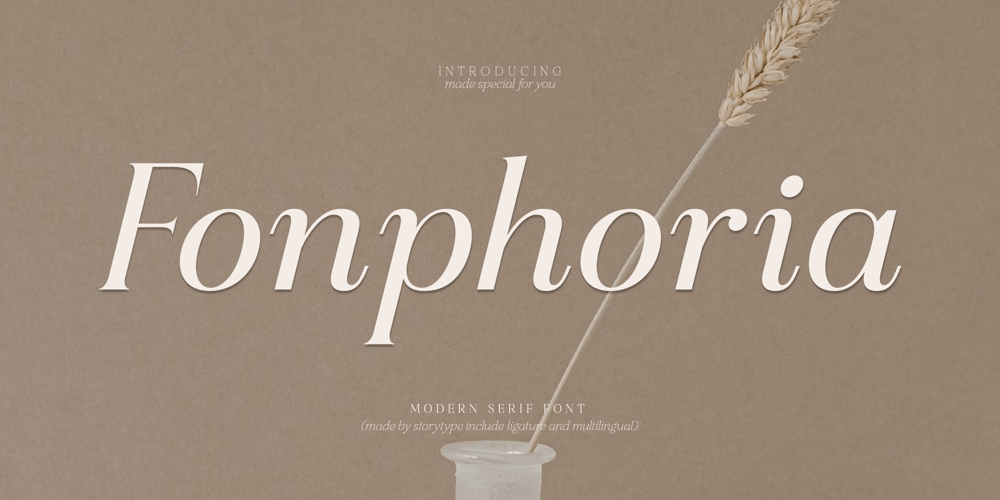
Fonphoria Font Family was designed by Heru Utama Putra and published by Letterena Studios. Fonphoria contains 2 styles and family package options. Proudly present Fonphoria Typeface , created by Storytype,A serif modern and classic typeface that has own unique style & modern look.This typeface is perfect for an elegant & luxury logo, book or movie title design, fashion brand, magazine, clothes, lettering, quotes, and so much more.